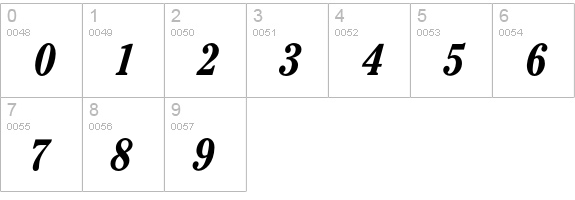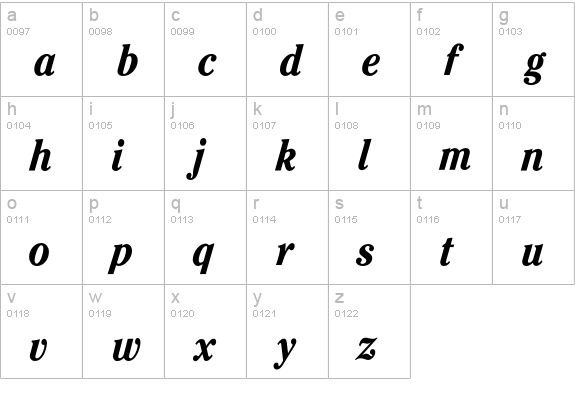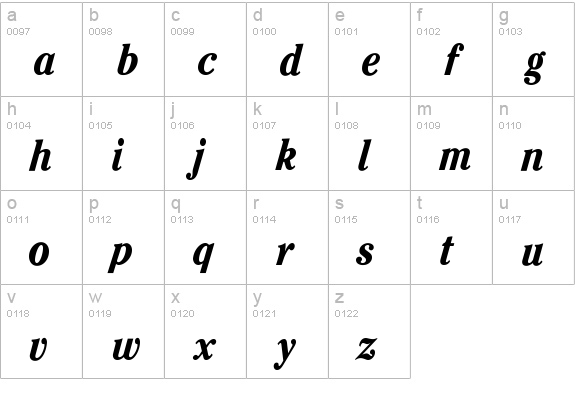
CheltenhamCondBoldItalic Font Details
CheltenhamCondBoldItalic is a striking and elegant typeface that exudes sophistication and modernity. Its bold yet graceful italic design makes it perfect for adding a touch of flair to any project. This font is ideal for creating eye-catching headlines, stylish logos, and elegant invitations. The best part? CheltenhamCondBoldItalic is available for free download at FontsMarket.com. So you can elevate your designs without breaking the bank. Don't miss out on this fabulous font that combines boldness with a touch of finesse. Download CheltenhamCondBoldItalic today and take your projects to the next level!